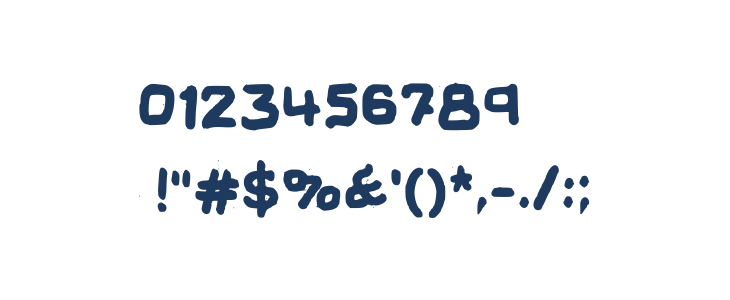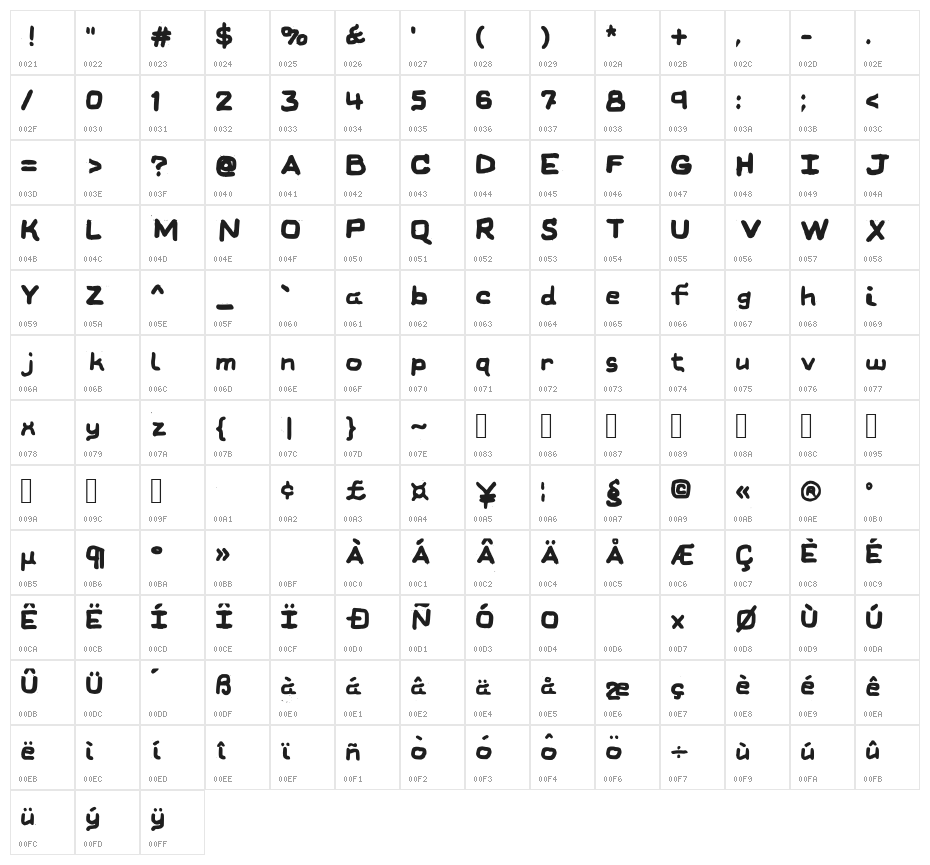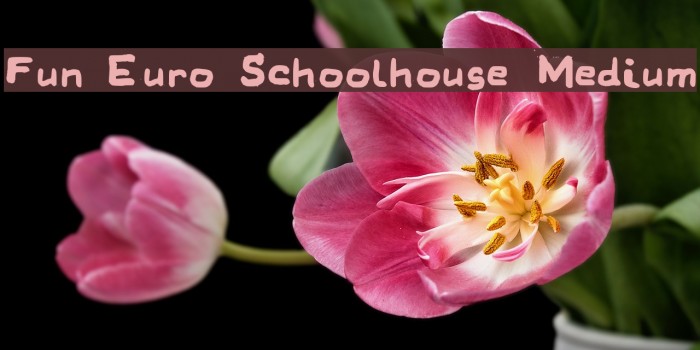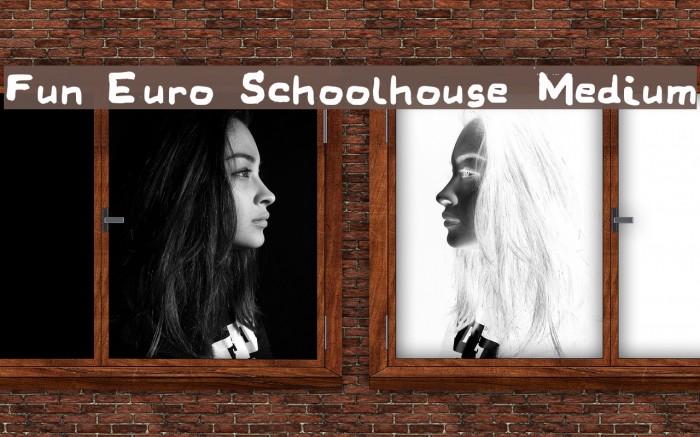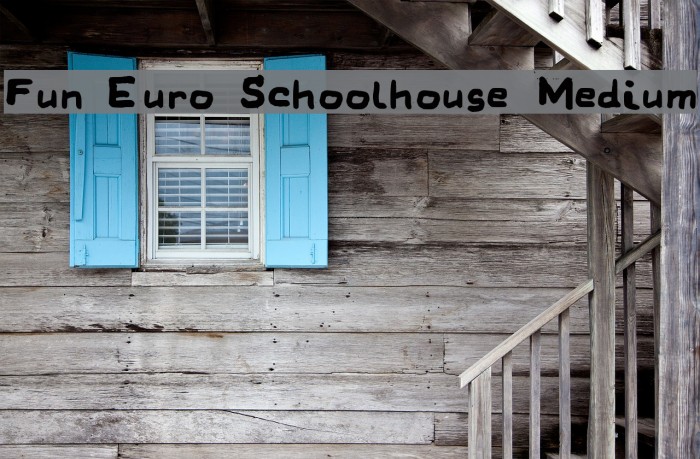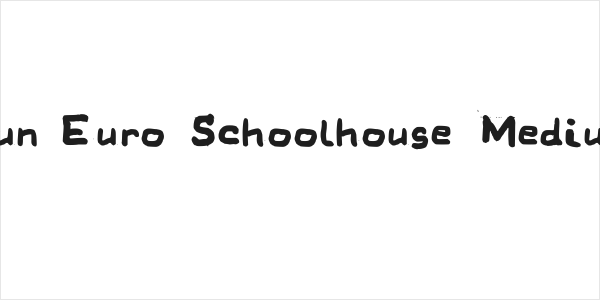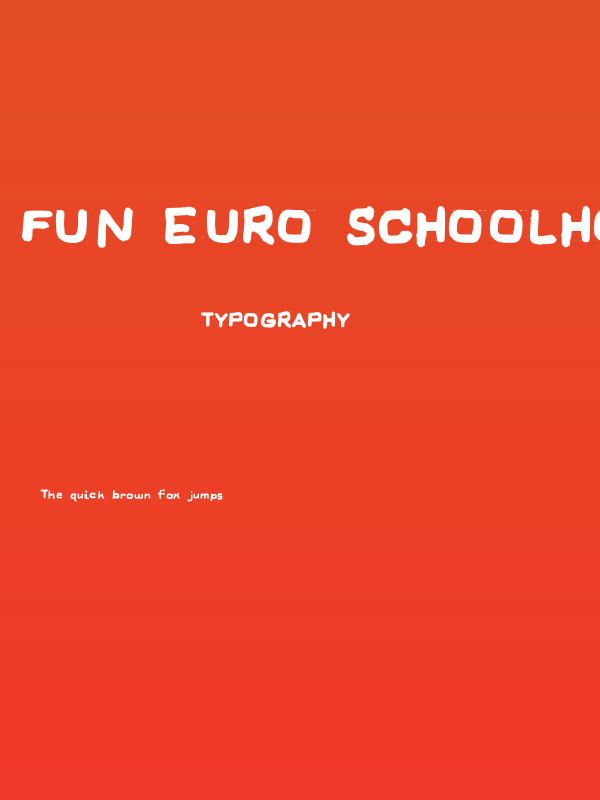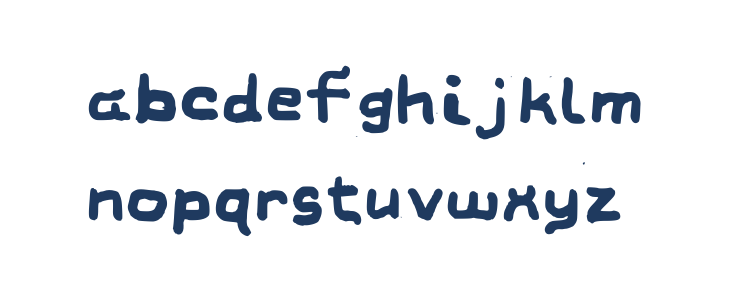
Fun Euro Schoolhouse Medium Font
Fun Euro Schoolhouse Medium Description
This playful and rounded font exudes a casual, handwritten style reminiscent of a schoolhouse chalkboard. The characters are bold and slightly irregular, giving them a friendly and approachable appearance. The uppercase and lowercase letters maintain a consistent style, with rounded edges and a slightly uneven baseline that adds to the whimsical feel. The numerals and special characters follow the same design principles, ensuring a cohesive look across all glyphs. This font is perfect for projects that require a touch of fun and informality, such as children's books, educational materials, or playful branding.